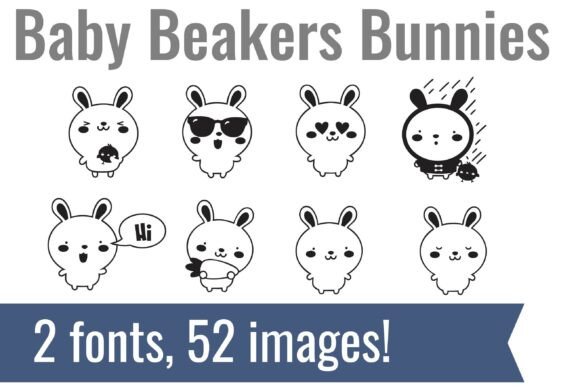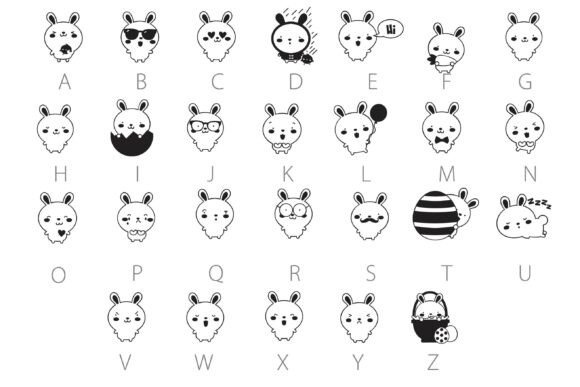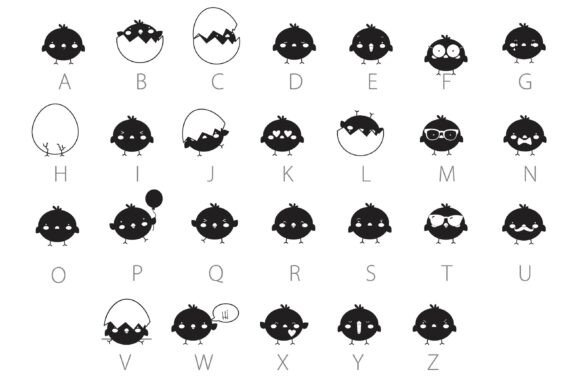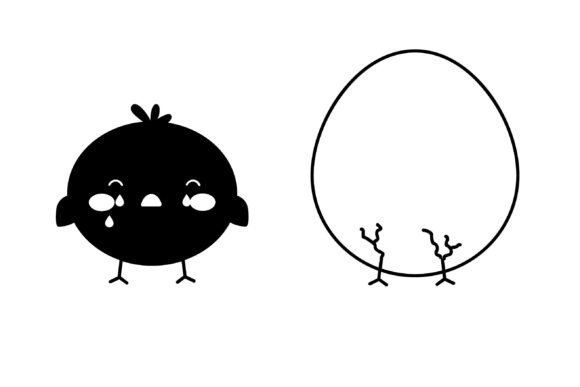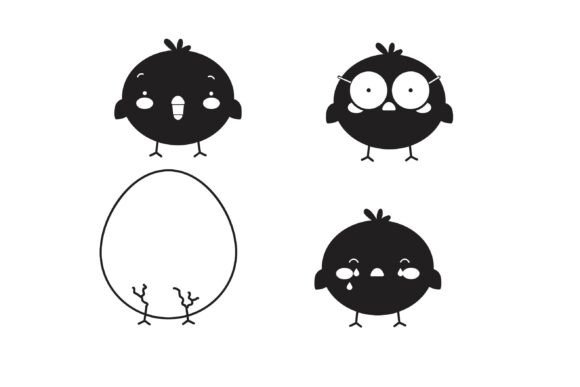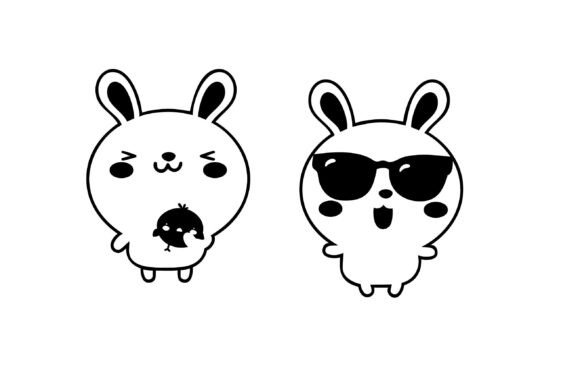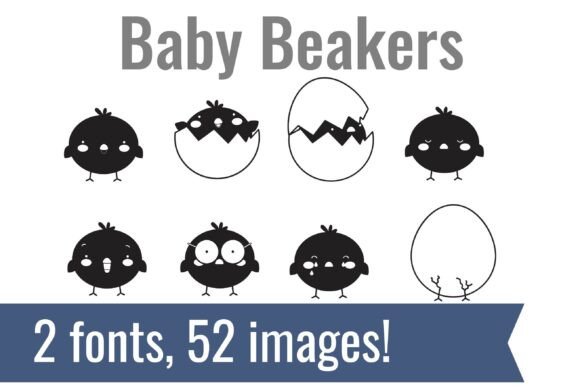
Baby Beakers Dingbats Font: Unlock Endless Creativity with Adorable Designs
Are you tired of spending hours searching for the perfect icons and graphics for your designs? Look no further! The Baby Beakers Dingbats Font bundle is here to revolutionize your creative process with two perfectly coordinated dingbat fonts featuring baby chicks and bunnies. With these fonts, you’ll have access to dozens of cohesive, scalable designs at your fingertips, making it easy to create stunning visuals for various projects.
What are Dingbat Fonts?
Dingbat fonts are a type of font that features graphical symbols, icons, or images instead of traditional letters. They’re perfect for designers, crafters, and anyone looking to add a touch of personality to their work. In the case of the Baby Beakers Dingbats Font, you’ll get two fonts that work seamlessly together, featuring adorable baby chicks and bunnies.
The Benefits of Using Baby Beakers Dingbats Font
With the Baby Beakers Dingbats Font, you’ll enjoy numerous benefits, including:
- Time-saving: No more scouring the internet for hours to find the perfect icons and graphics. Our dingbat fonts provide you with a vast library of designs that can be easily accessed by typing a letter.
- Cohesive designs: The two fonts in this bundle are perfectly coordinated, ensuring that your designs look cohesive and professional.
- Scalability: Our dingbat fonts are scalable, meaning you can use them for various projects, from small icons to large graphics, without compromising on quality.
Use Cases for Baby Beakers Dingbats Font
The Baby Beakers Dingbats Font is versatile and can be used for a wide range of projects, including:
- Holiday cards and invitations: Create charming seasonal icons and intricate frames to make your cards and invitations stand out.
- Vinyl cutting: Use our dingbat fonts to create custom vinyl designs for decals, stickers, and more.
- Paper crafts: Add a personal touch to your paper crafts, such as scrapbooking, card making, and origami.
- Planners and journals: Use our fonts to create custom headers, icons, and designs for your planners and journals.
Features of Baby Beakers Dingbats Font
The Baby Beakers Dingbats Font bundle includes the following features:
- Two coordinated dingbat fonts: Featuring baby chicks and bunnies, these fonts work seamlessly together to provide a cohesive design.
- Dozens of designs: Each font includes a range of designs that can be accessed by typing a letter.
- Scalable designs: Our fonts are designed to be scalable, ensuring that your designs look great in any size.
Unlock endless creativity with the Baby Beakers Dingbats Font bundle. With two perfectly coordinated dingbat fonts featuring baby chicks and bunnies, you’ll have access to dozens of cohesive, scalable designs at your fingertips. Say goodbye to hours of searching for the perfect icons and graphics, and hello to stunning designs that will take your projects to the next level. Whether you’re a designer, crafter, or DIY enthusiast, this font bundle is perfect for anyone looking to add a touch of personality to their work.